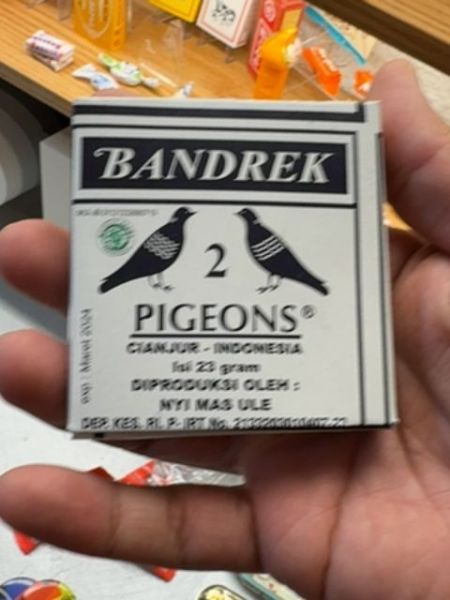
2 Pigeons Bandrek
A traditional Indonesian herbal drink, often consumed to provide warmth and energy, especially in cooler climates.
Indonesia
The typography features a bold, serif font for the main product name 'BANDREK', which conveys a sense of tradition and reliability. The supporting text such as '2 Pigeons' uses a clean, sans-serif typeface to maintain clarity and legibility, balancing the overall design aesthetic between modern and traditional elements.
The packaging is a compact, rectangular box with two illustrated pigeons flanking the number '2'. Its design is straightforward, emphasizing the brand name and product details prominently against a plain background.
- Bandrek is a traditional herbal drink from Indonesia.
- The product is produced in Cianjur, Indonesia.
- The packaging includes symbolic imagery of two pigeons.